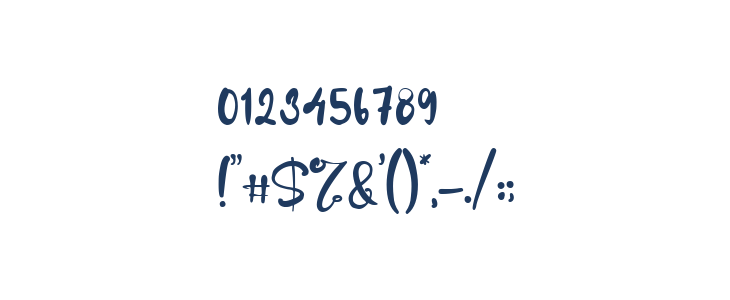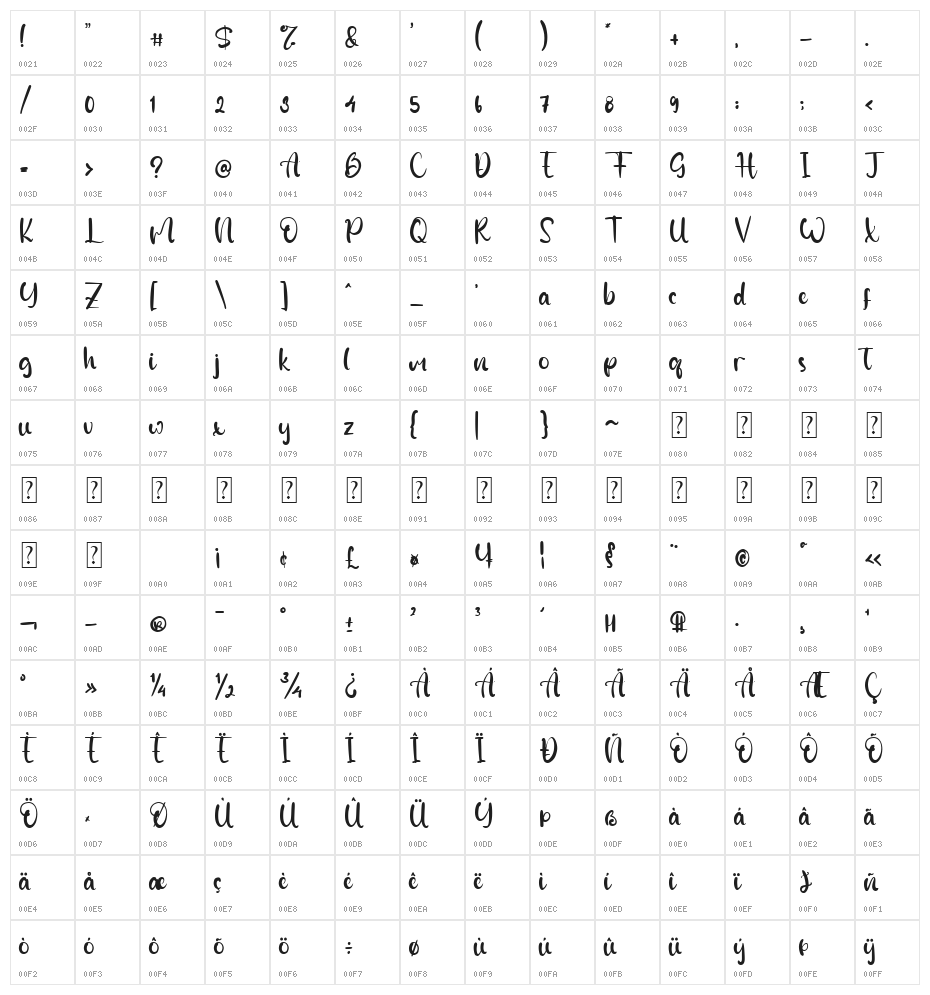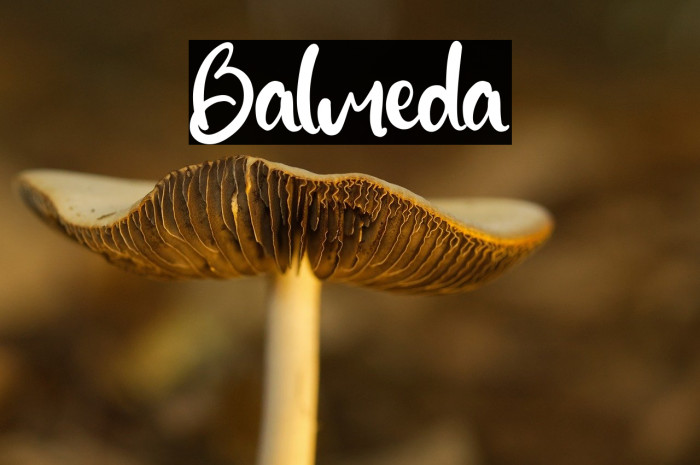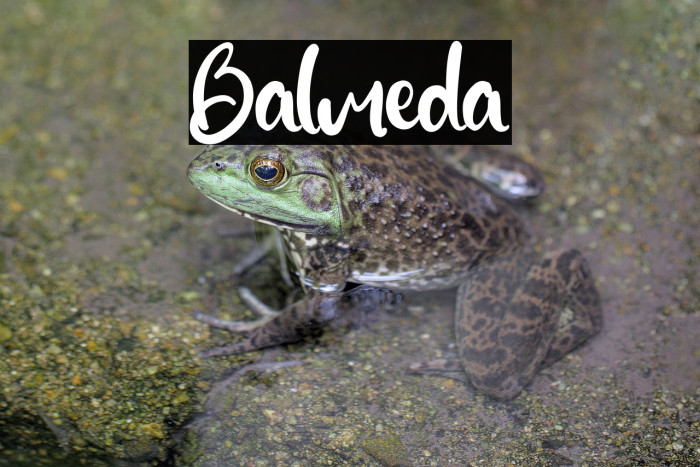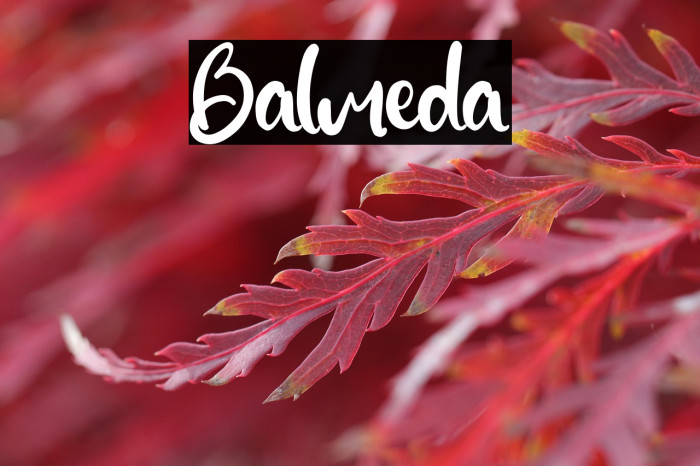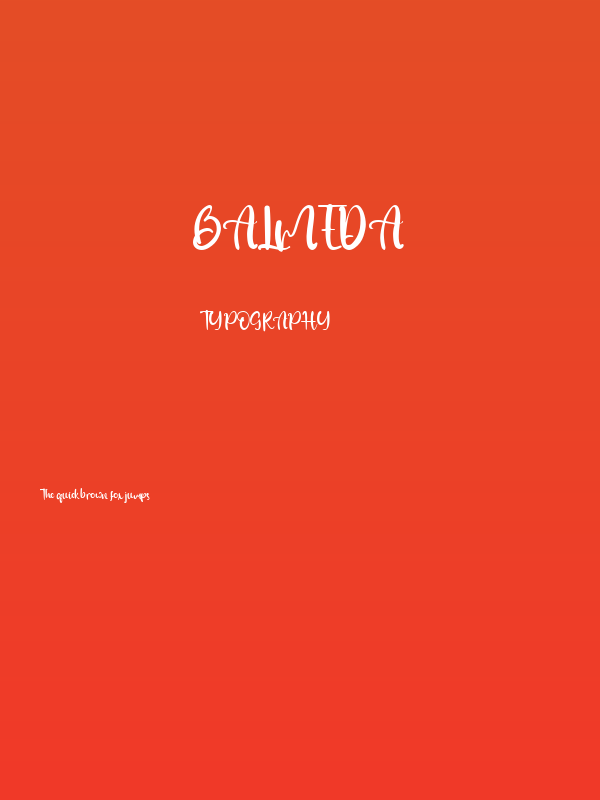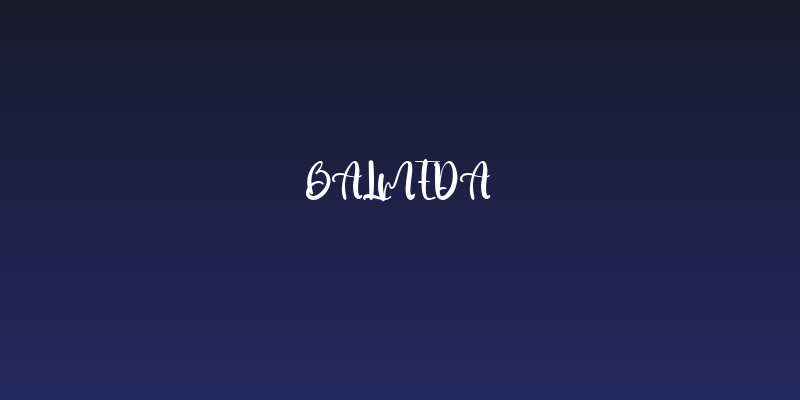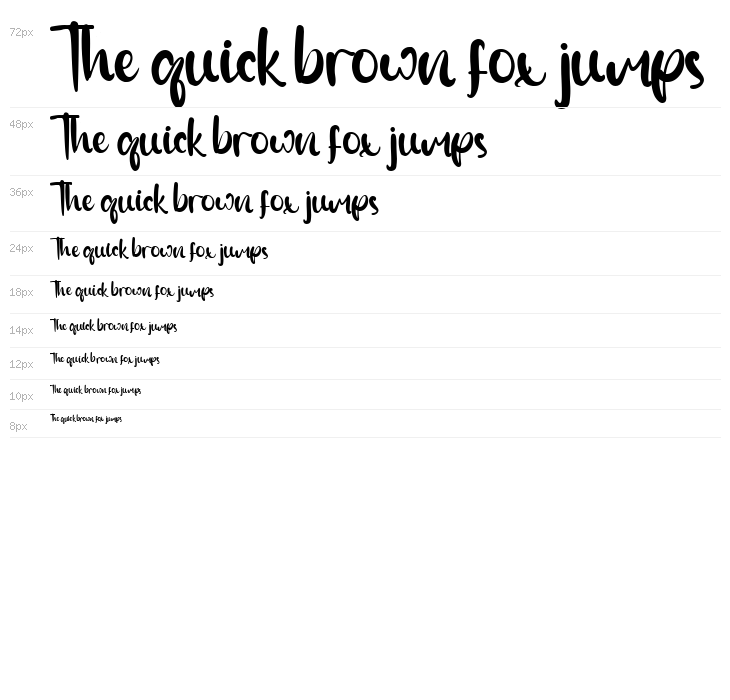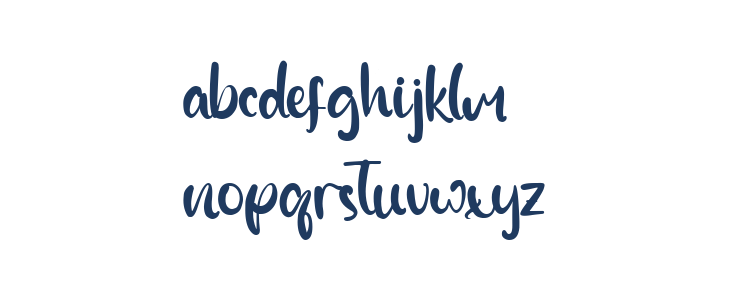
Balmeda Font
Balmeda Description
This font features a playful and energetic script style with a handwritten appearance. The letters are characterized by their fluid, flowing lines and varying stroke thickness, giving it a dynamic and lively feel. The uppercase letters have a distinctive flair with loops and curves, while the lowercase letters maintain a consistent, casual style. The numerals and special characters complement the overall design, maintaining the same whimsical and informal aesthetic. This font is ideal for projects that require a personal touch or a creative, artistic vibe.
| Use Case | Logos, Invitations, Creative projects |
| Proposed Projects | Ideal for greeting cards, invitations, branding, and creative projects that require a personal touch. |